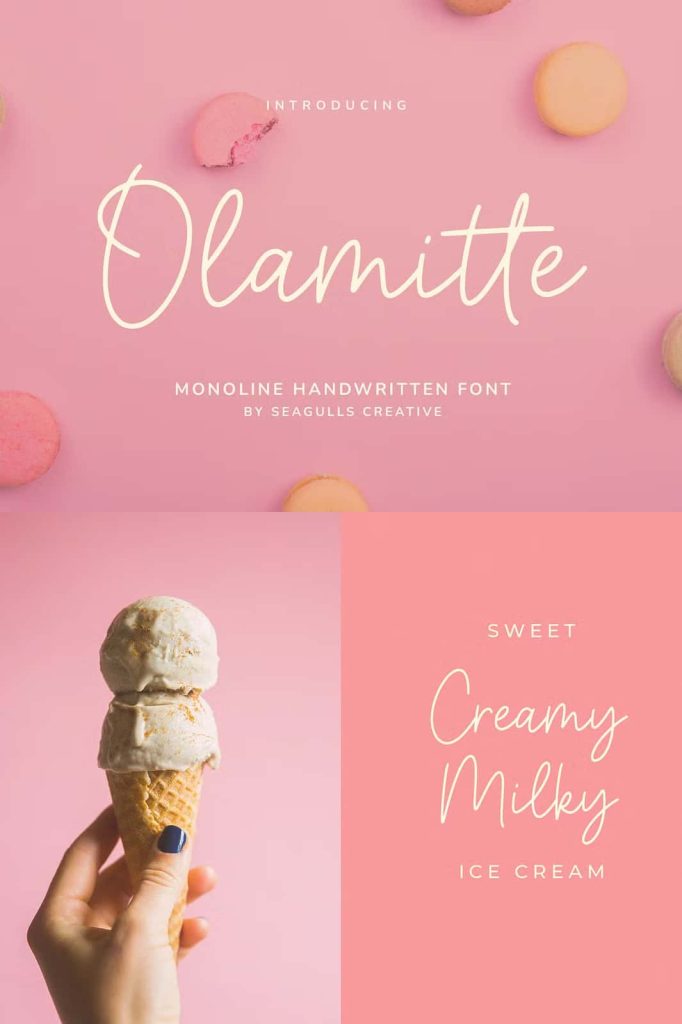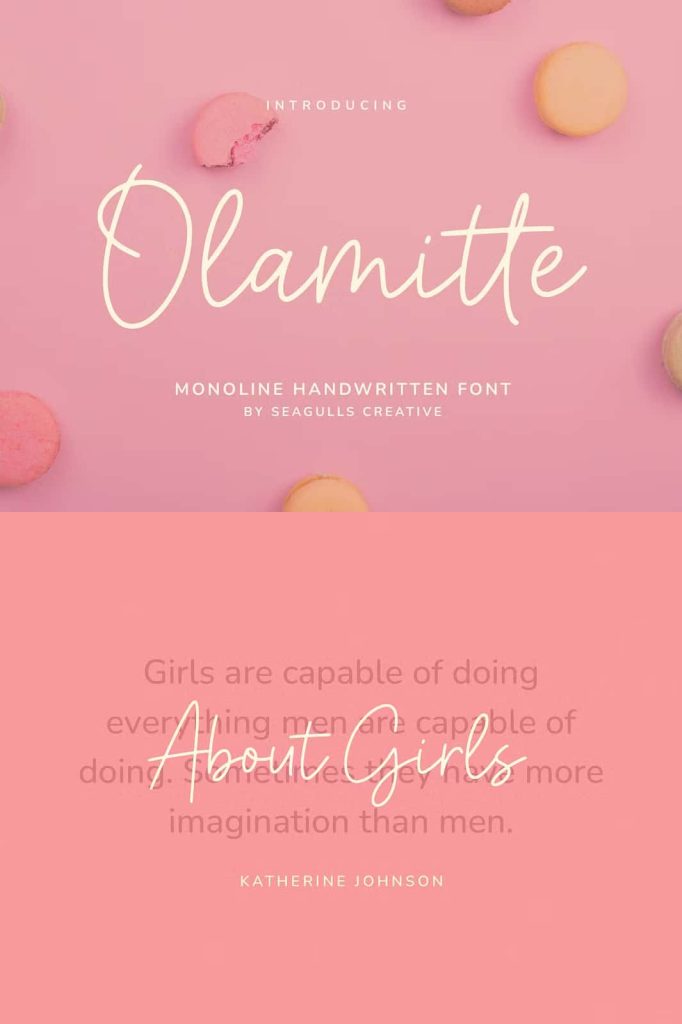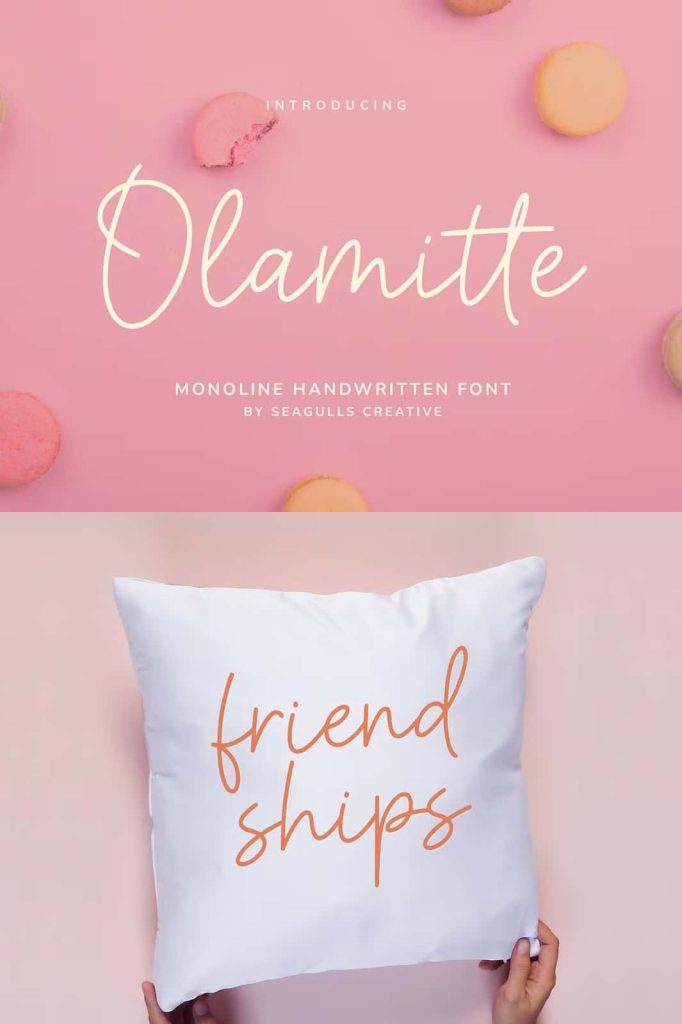
Olamitte Monoline Handwritten Font – Simple and Natural Cursive Typeface
Olamitte Monoline Handwritten Font is a beautifully crafted handwritten typeface that combines clean monoline strokes with a smooth, natural cursive style. Designed to bring elegance and authenticity to every project, Olamitte offers a handwritten appearance that feels effortless, personal, and modern. Its balanced letterforms and flowing connections create typography that is both stylish and highly readable, making it an excellent choice for designers, entrepreneurs, and creative professionals.
Whether you are developing a memorable brand identity, designing elegant wedding invitations, creating eye-catching social media content, or producing premium product packaging, Olamitte Monoline Handwritten Font helps your designs stand out with a sophisticated handwritten touch. Its minimalist style allows it to adapt easily to countless design themes, from modern and luxurious to casual and friendly.
Elegant Monoline Design with Natural Handwriting
Olamitte features consistent monoline strokes that give every letter a clean and polished appearance. Unlike heavily decorative script fonts, this typeface focuses on simplicity and smooth writing flow, allowing your text to remain attractive without becoming difficult to read.
The natural cursive connections create realistic handwriting that feels genuine and inviting. Every character has been carefully designed to deliver visual harmony while maintaining excellent legibility across various sizes. This makes Olamitte suitable for both large display text and smaller design elements where clarity remains important.
Create Beautiful and Professional Branding
Typography plays an important role in creating a memorable brand identity, and Olamitte Monoline Handwritten Font offers the perfect balance between professionalism and personality. Its elegant handwritten style communicates warmth, creativity, and authenticity while maintaining a clean presentation suitable for commercial projects.
Whether you own a boutique, beauty brand, coffee shop, online store, photography business, or creative agency, Olamitte helps establish a visual identity that feels modern, approachable, and distinctive.
Key Features
- Simple and elegant monoline handwritten style.
- Natural flowing cursive letterforms.
- Clean and consistent stroke thickness.
- Excellent readability for display typography.
- Minimalist design suitable for modern branding.
- Professional appearance with handcrafted charm.
- Perfect for both digital and printed materials.
Perfect for Various Creative Projects
Olamitte Monoline Handwritten Font offers exceptional versatility, making it suitable for a wide range of personal and commercial design applications. Its clean handwritten style adapts beautifully to modern layouts while adding a personal touch that enhances visual appeal.
You can use Olamitte for:
- Logo design
- Brand identity
- Business cards
- Product packaging
- Product labels
- Watermarks
- Photography branding
- Wedding invitations
- Greeting cards
- Stationery design
- Instagram posts
- Advertising materials
- Email marketing graphics
- Website headers
- Blog titles
- Personal signatures
- Product mockups
- Fashion branding
- Beauty product packaging
- Craft projects
- Custom merchandise
Ideal for Wedding and Event Stationery
Olamitte Monoline Handwritten Font shines beautifully in wedding and event stationery. Its elegant cursive style adds romance and sophistication without becoming overly decorative. From invitations and RSVP cards to menus, place cards, thank-you notes, and event signage, Olamitte creates timeless typography that complements a variety of wedding themes.
The font’s graceful handwriting helps transform simple text into memorable keepsakes that guests will appreciate long after the event has ended.
Enhance Social Media and Digital Content
In today’s digital world, attractive typography helps content capture attention quickly. Olamitte Monoline Handwritten Font adds personality to social media graphics, promotional banners, online advertisements, and digital marketing materials while maintaining a professional appearance.
Its clean lines ensure that text remains readable on mobile devices, websites, and various screen sizes, making it an excellent choice for content creators, influencers, and businesses looking to strengthen their online presence.
Perfect for Packaging and Product Design
Product packaging often serves as the first impression customers receive, and Olamitte helps create packaging that feels elegant, handcrafted, and trustworthy. Its handwritten style adds warmth to cosmetic labels, handmade products, artisan foods, candles, clothing tags, and premium gift packaging.
The font communicates quality and authenticity, making products feel more personal while enhancing their visual appeal on retail shelves and online marketplaces.
Olamitte Monoline Handwritten Font is an excellent choice for anyone seeking a clean, elegant, and natural cursive typeface. Its flowing monoline strokes, balanced letterforms, and timeless handwritten appearance make it suitable for branding, photography, wedding stationery, product packaging, advertising, signatures, social media graphics, and countless other creative projects. Add Olamitte Monoline Handwritten Font to your design collection and create sophisticated typography that leaves a lasting impression across both print and digital media.